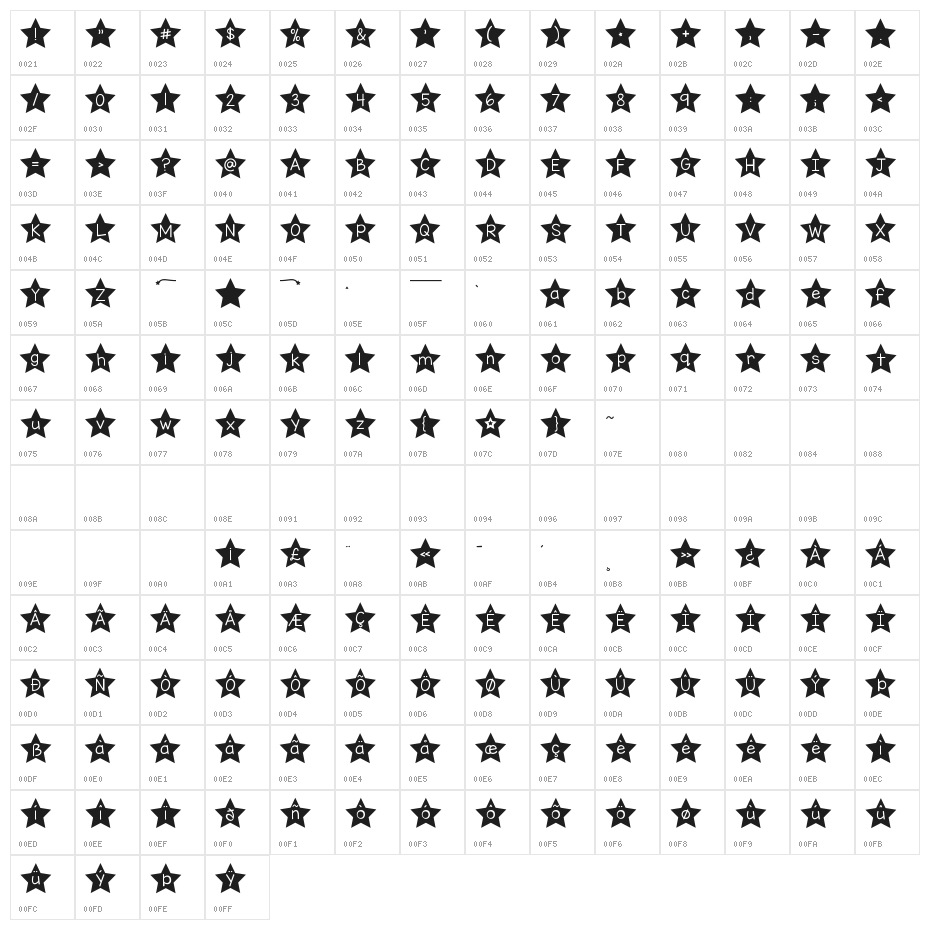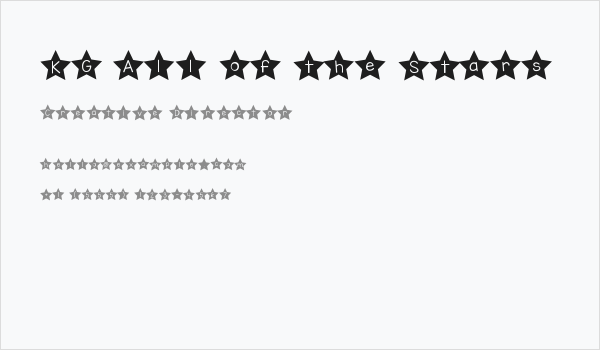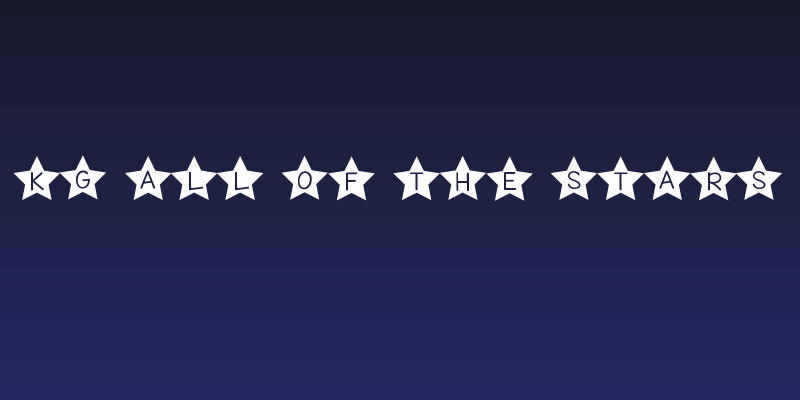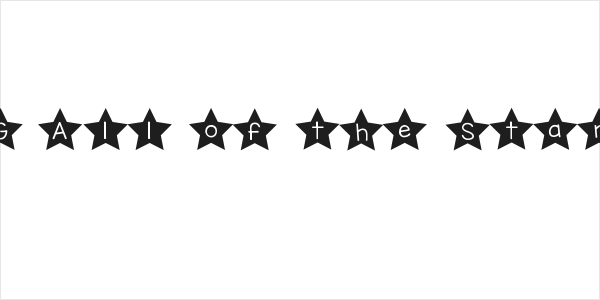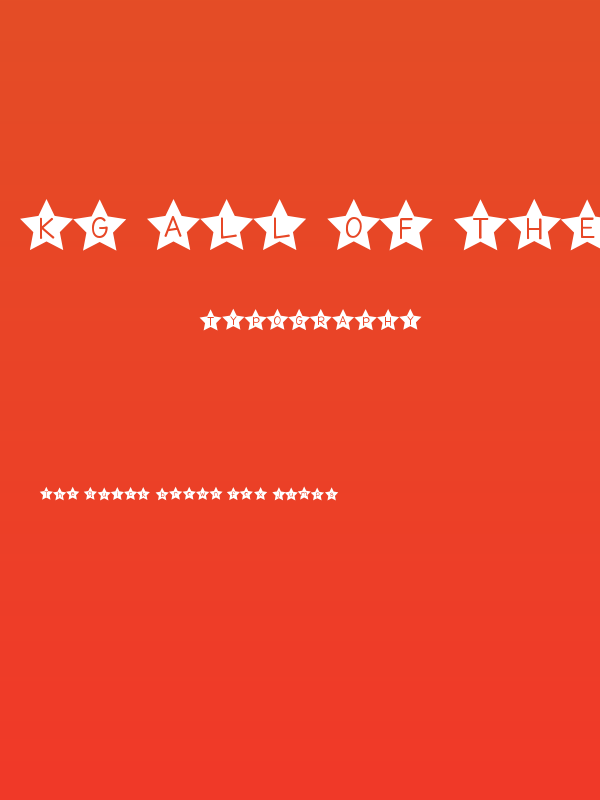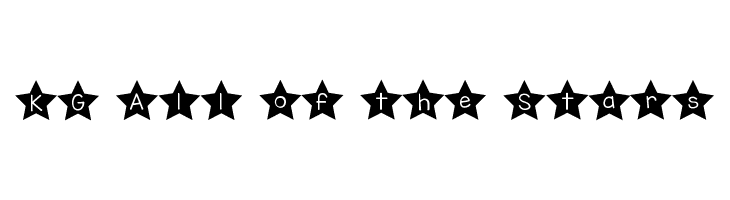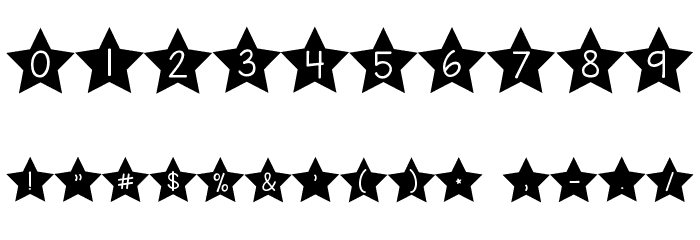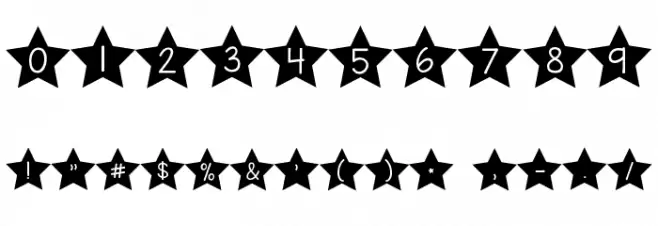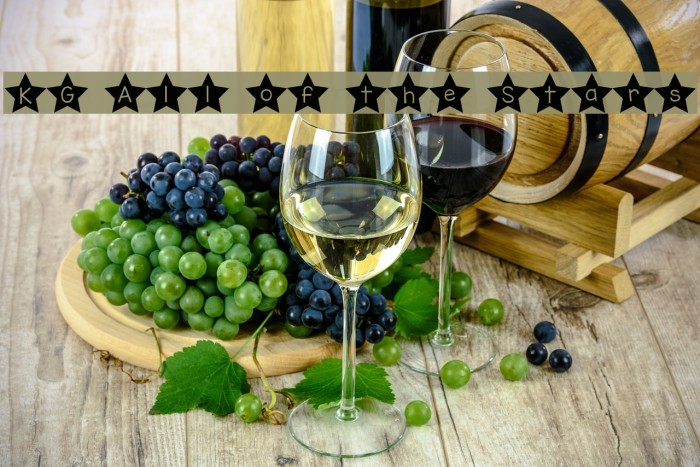
KG All of the Stars Font
KG All of the Stars Description
This playful and decorative font features each character enclosed within a bold star shape, creating a whimsical and eye-catching design. The letters and numbers are centered within the stars, providing a unique and consistent visual appeal. The font is ideal for projects that require a fun and engaging look, such as children's books, party invitations, or festive banners. Its distinctive style ensures that it stands out, making it perfect for headlines or titles where attention is key. The consistent star motif across all characters adds to its charm and thematic coherence.
| Proposed Projects | Ideal for children's books, party invitations, festive banners, and any project needing a whimsical touch. |